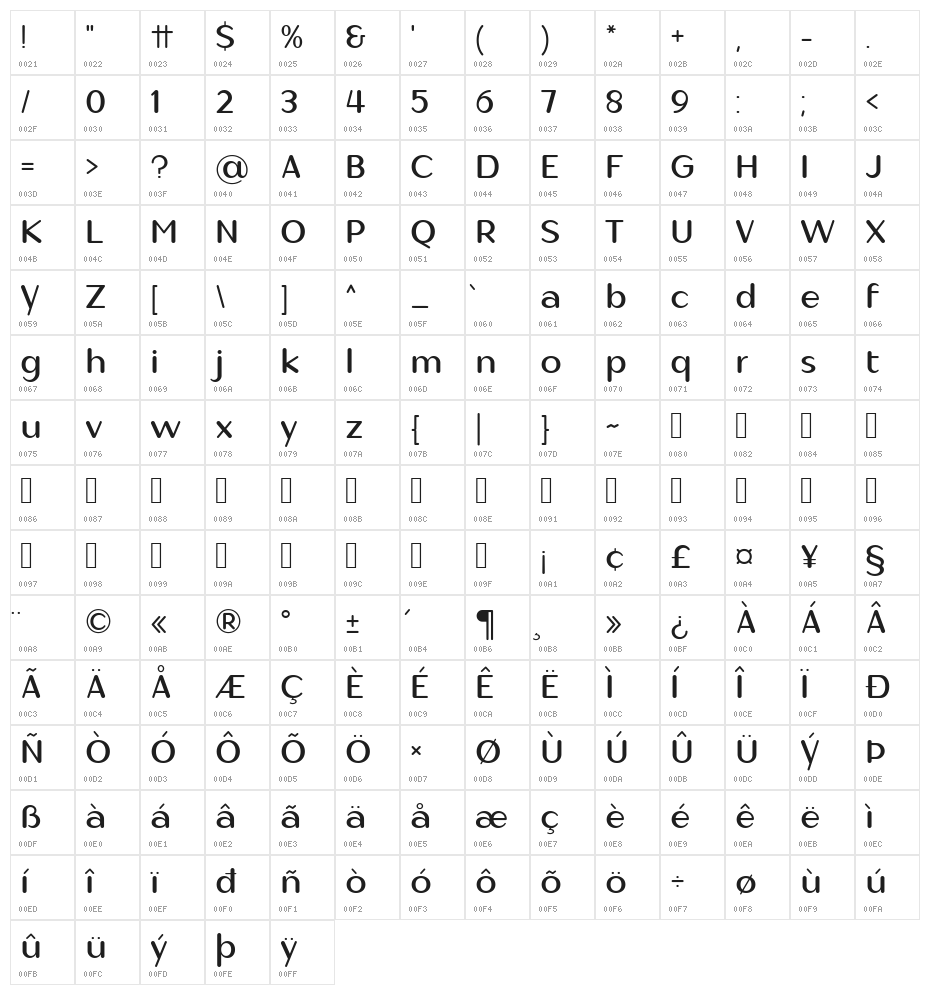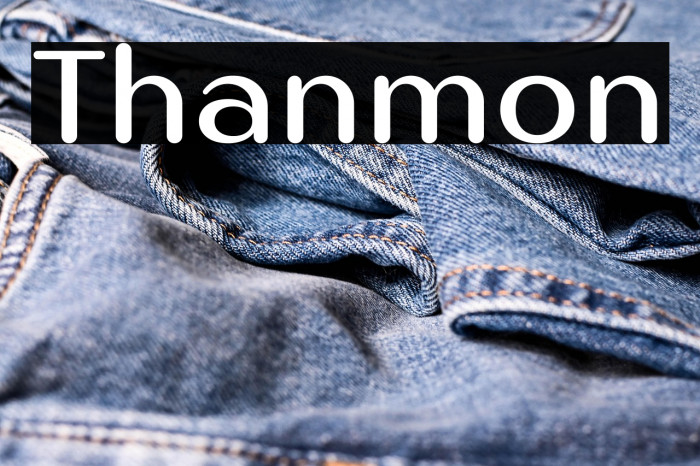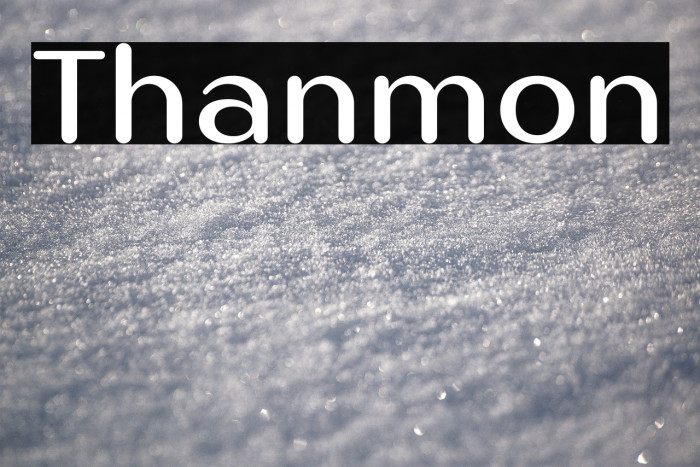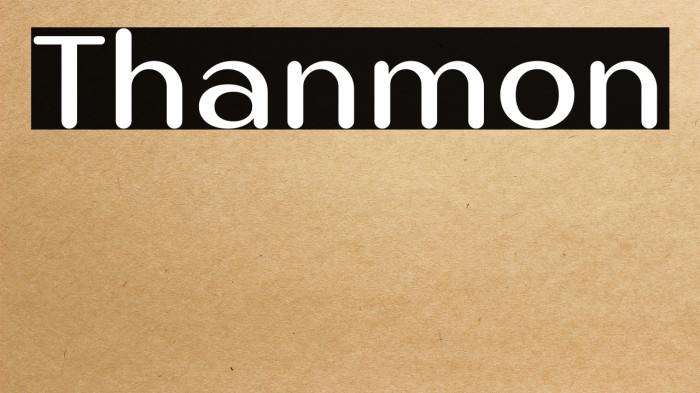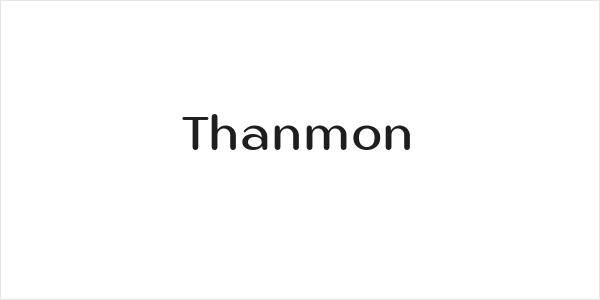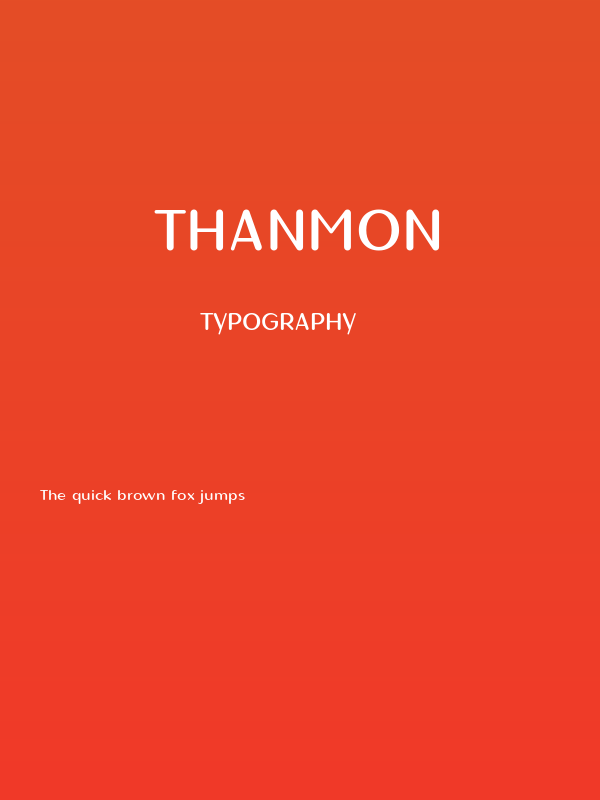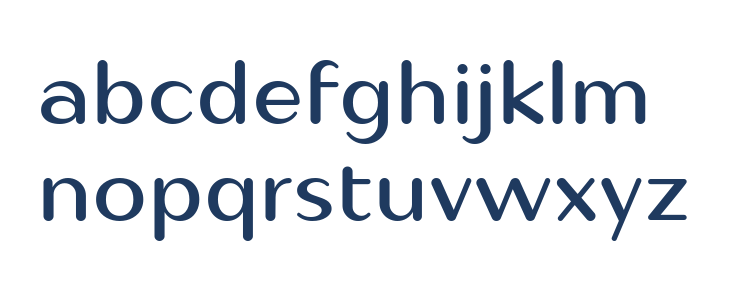
Thanmon Font
Thanmon Description
This font features a clean and modern sans-serif design, characterized by smooth curves and a uniform stroke width. The letters have a rounded appearance, contributing to a friendly and approachable aesthetic. The uppercase letters are slightly taller than the lowercase, maintaining a consistent line weight throughout. The numerals are clear and easily distinguishable, while the special characters are well-integrated, maintaining the overall style. This font is versatile, suitable for a variety of applications where readability and a contemporary look are desired.
| Proposed Projects | Ideal for branding, digital interfaces, signage, and editorial design where clarity and modernity are key. |